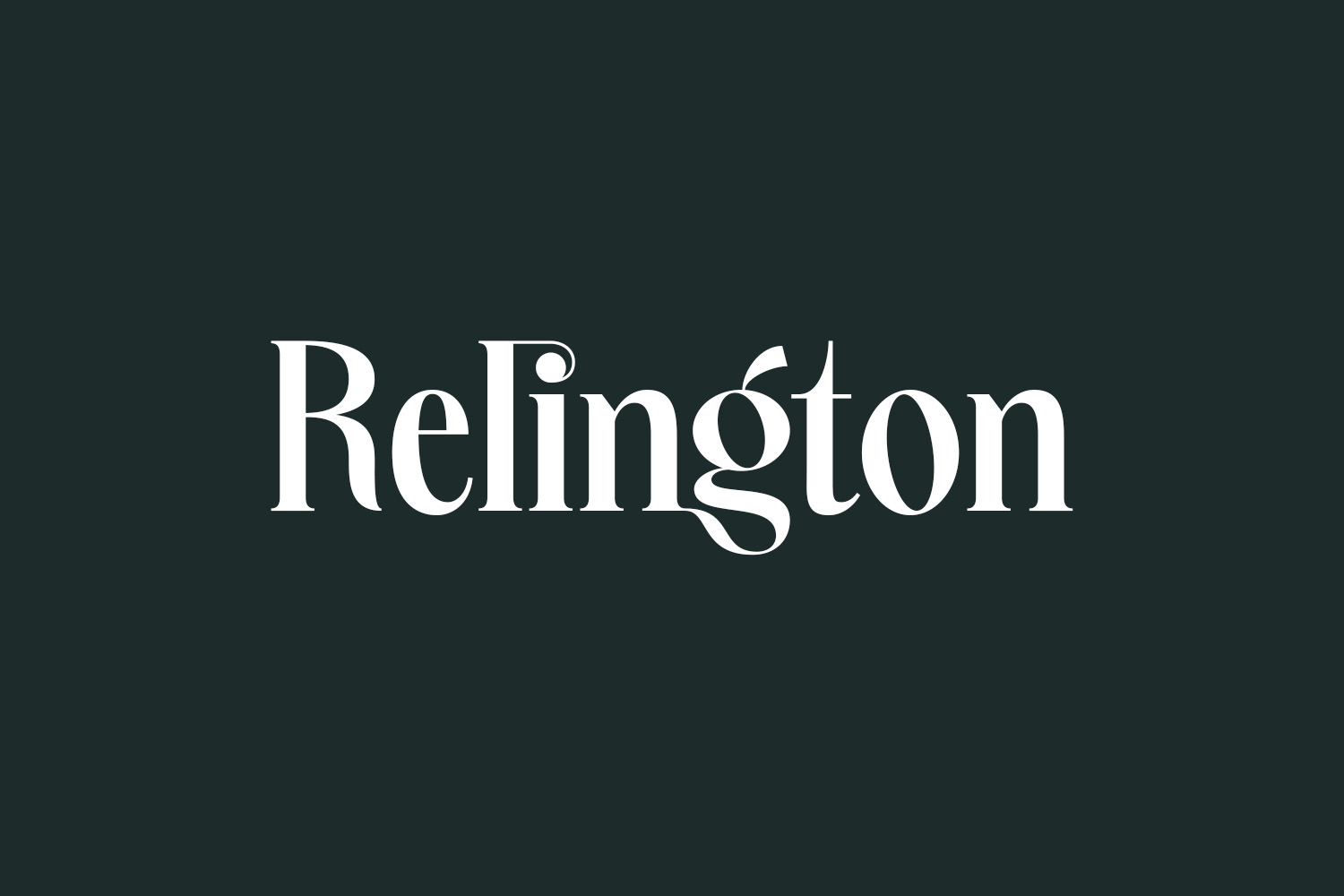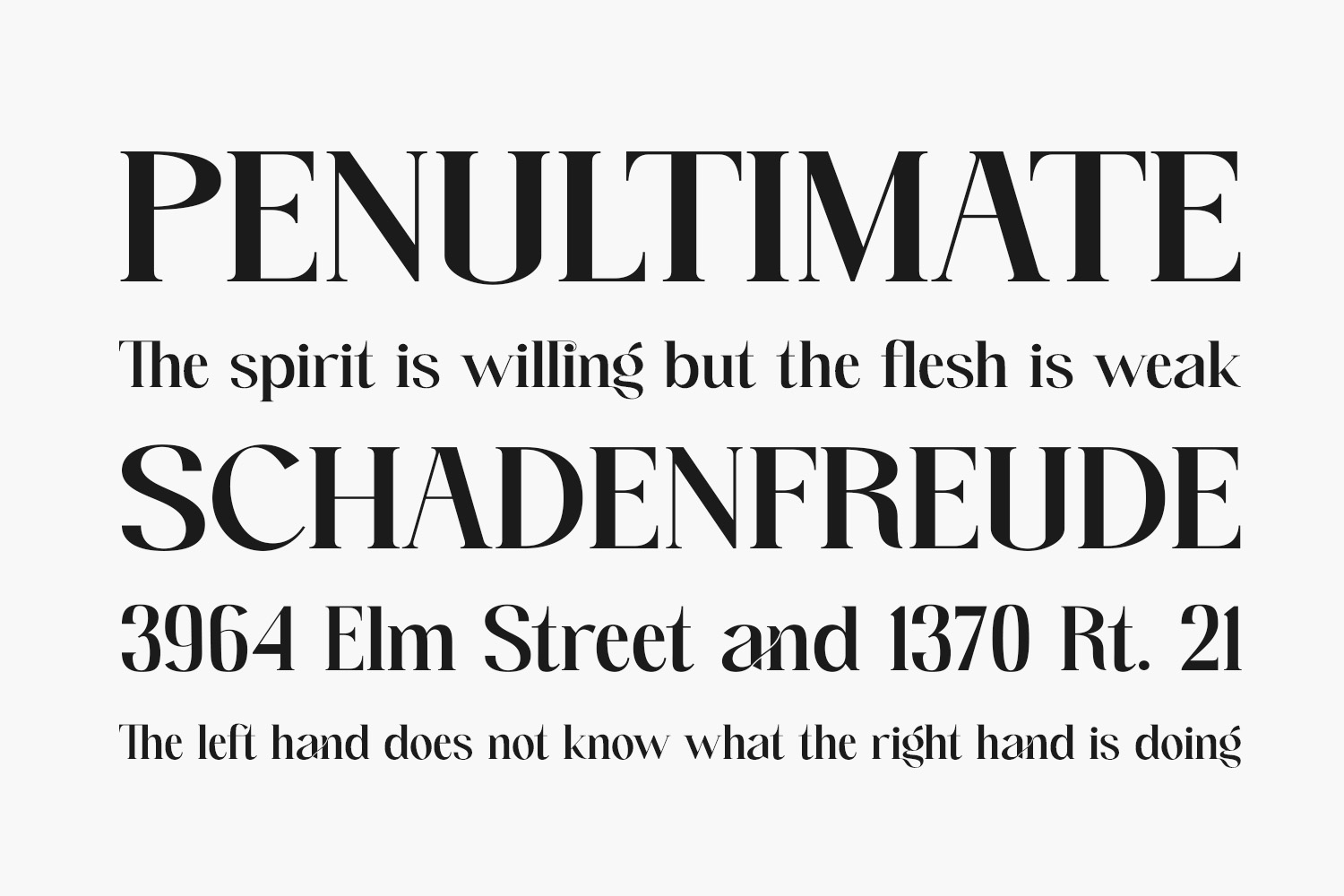
Discover the versatility and timeless elegance of Relington Free Font, a sophisticated serif font designed to exude charm. With its bold curves and intricate details, Relington adds a classy, modern flair to your projects. Whether you’re creating displays, web designs, or social media content, Relington effortlessly elevates your work to the next level. The luxurious curves of this font bring a touch of sophistication and uniqueness, making it an excellent choice for enhancing your creative endeavors. Relington Free Font is free for personal use only. Please purchase the full version for commercial use.
Designed by ToniStudio